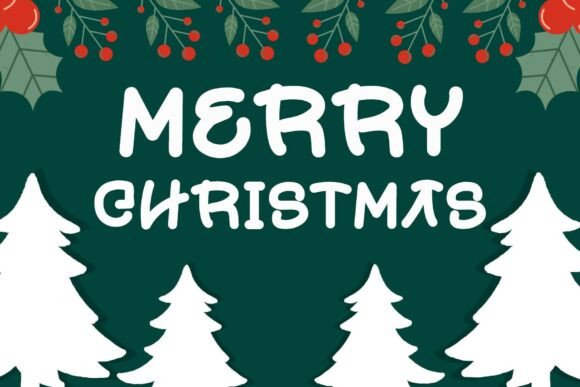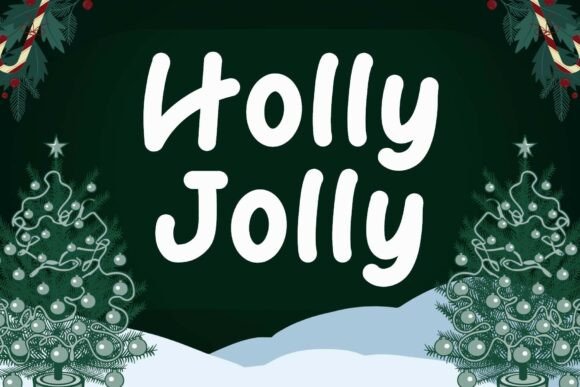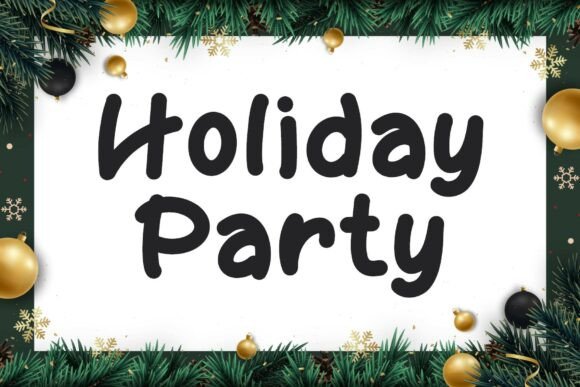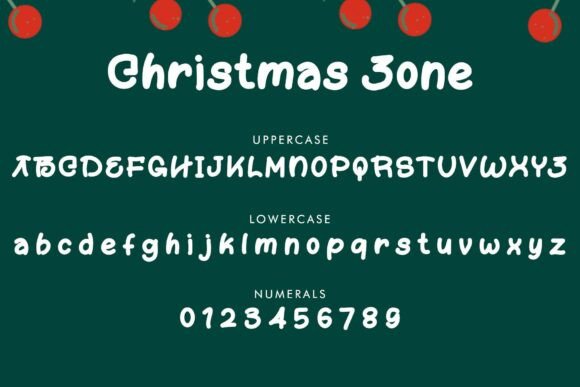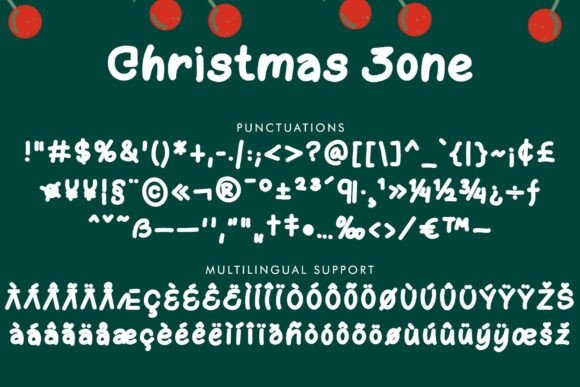
Introducing the Christmas Zone Font: A Playful Script Font for the Holiday Season
Are you looking for a font that captures the spirit of Christmas and adds a touch of playfulness to your designs? Look no further than the Christmas Zone Font! This unique and festive script font is perfect for creating holiday-themed designs, from Christmas cards and invitations to Halloween decorations and comic book art.
What Makes the Christmas Zone Font Special?
The Christmas Zone Font is a versatile and feature-rich font that offers a wide range of characters and symbols to help you create stunning designs. Here are some of its key features:
- Uppercase and Lowercase Letters: The font includes both uppercase and lowercase letters, allowing you to create titles, headings, and body text with ease.
- Numerals and Punctuations: The font also includes numerals and punctuations, making it perfect for creating lists, captions, and other types of text.
- Multilingual Support: The Christmas Zone Font supports multiple languages, making it a great choice for designers who work with international clients or want to create designs for a global audience.
The Christmas Zone Font is incredibly versatile and can be used for a wide range of design projects, including:
- Christmas Designs: Create festive Christmas cards, invitations, and decorations with the Christmas Zone Font.
- Birthday and Holiday Designs: Use the font to create fun and playful birthday and holiday-themed designs, such as party invitations and decorations.
- Vacation and Travel Designs: The font is perfect for creating travel brochures, posters, and other designs that evoke a sense of adventure and fun.
- Prints and Banners: Use the Christmas Zone Font to create eye-catching prints and banners for events, promotions, and other purposes.
- Logos and Stickers: The font is great for creating logos, stickers, and other types of graphics that require a playful and attention-grabbing font.
- Halloween and Comic Book Designs: The Christmas Zone Font can also be used to create spooky Halloween designs and comic book art that requires a fun and playful font.
Why Choose the Christmas Zone Font?
If you’re looking for a font that can add a touch of playfulness and festivity to your designs, the Christmas Zone Font is an excellent choice. Here are some reasons why:
- Unique and Playful: The font has a unique and playful style that will help your designs stand out from the crowd.
- Versatile: The Christmas Zone Font can be used for a wide range of design projects, from Christmas designs to comic book art.
- Feature-Rich: The font includes a wide range of characters and symbols, making it perfect for creating complex designs.
In conclusion, the Christmas Zone Font is a unique and playful script font that’s perfect for designers and crafters who want to add a touch of festivity and fun to their designs. With its feature-rich character set, versatility, and compatibility with a range of design software and platforms, this font is an excellent choice for a wide range of design projects. So why wait? Download the Christmas Zone Font today and start creating stunning holiday-themed designs!